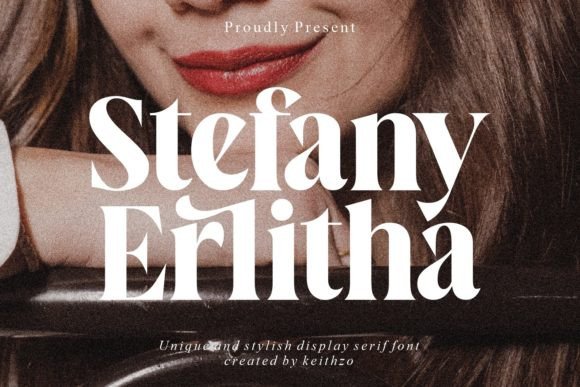
Introducing Stefany Erlitha Font, the ultimate solution for all your design needs! Whether you're a professional graphic designer or an aspiring DIY enthusiast, this font is guaranteed to elevate your projects to new heights. Crafted with love by the talented Keithzo from 7NTypes, Stefany Erlitha Font is the epitome of elegance and sophistication.
With its mesmerizing serif style, this font is the perfect choice for anyone seeking the best font for pen on Cricut. It offers a harmonious blend of traditional and contemporary elements, making it a versatile choice for a wide range of design projects. From wedding invitations to logo designs, this font will bring a touch of class and elegance to any piece.
What sets Stefany Erlitha Font apart from the rest is its remarkable attention to detail. Each letterform is meticulously crafted to ensure a flawless and visually pleasing result. The unique and distinctive letterforms are guaranteed to captivate your audience's attention and leave a lasting impression.
But that's not all! Stefany Erlitha Font also offers a timeless design that will remain relevant and attractive for years to come. Unlike other fonts that may lose their charm over time, this font is here to stay. So, whether you're designing for today or planning ahead for the future, Stefany Erlitha Font will always be the perfect choice.
One of the key features of this font is its PUA encoding. This means that you can effortlessly access all the amazing glyphs and swashes that come with Stefany Erlitha Font. Let your creativity run wild as you explore the endless possibilities and design unique combinations that truly express your style.
In conclusion, if you're looking to step up your design game and make a statement, Stefany Erlitha Font is the answer. It's not just a font, it's a work of art that will transform your projects into masterpieces. Don't settle for ordinary when you can have extraordinary. Download Stefany Erlitha Font today and unlock a world of creativity and inspiration.